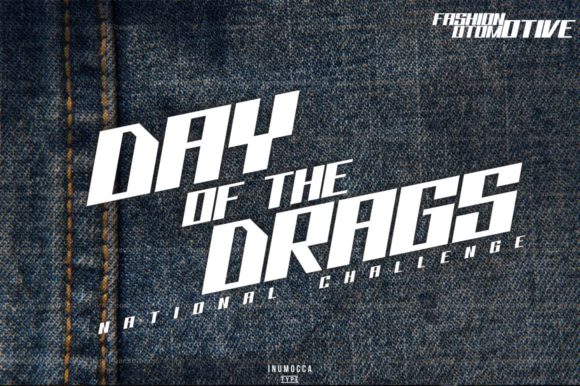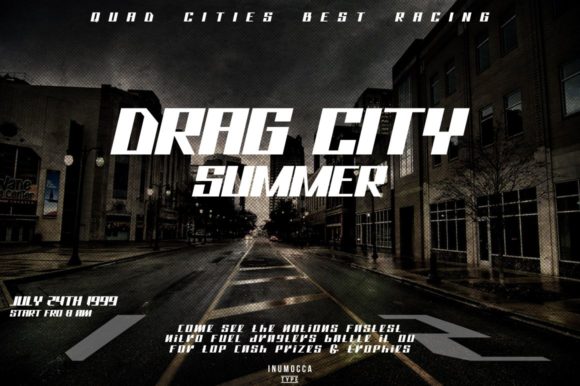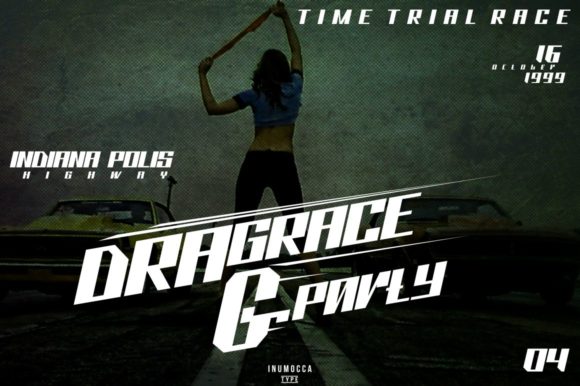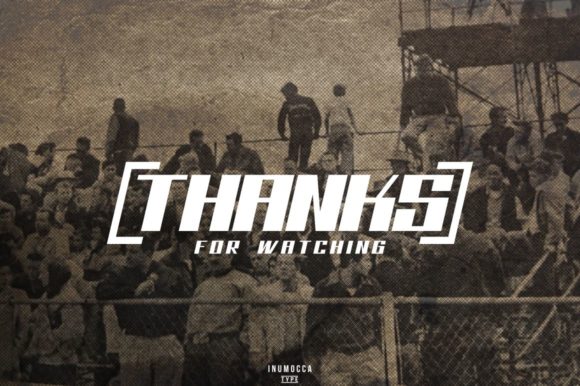
Introduction to Bhejeuct Gash Font
Bhejeuct Gash is a bold, thick lettered and futuristic display font.
It looks incredibly adept for rally or sporting designs Add it confidently to your projects, and you wonโt be disappointed.
Key Features of Bhejeuct Gash Font